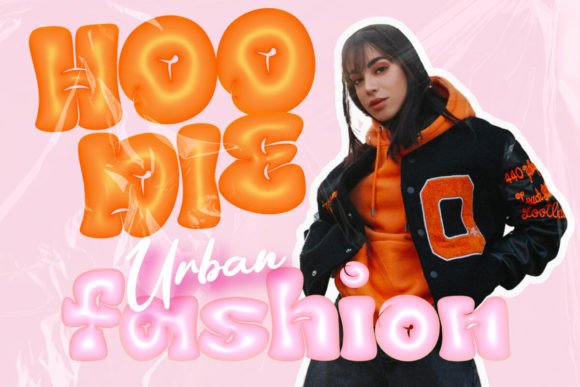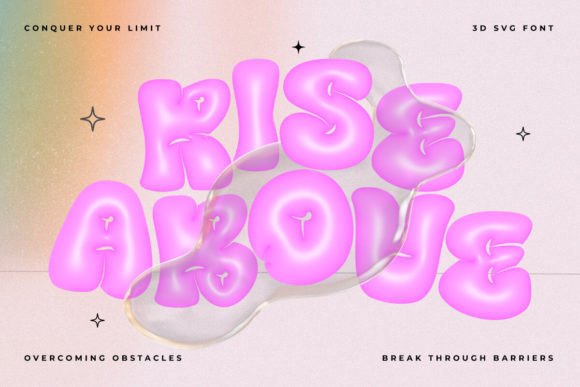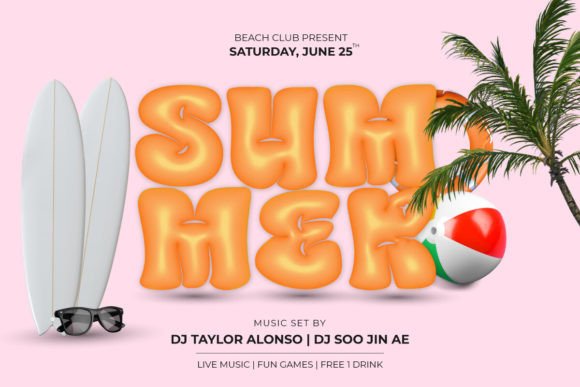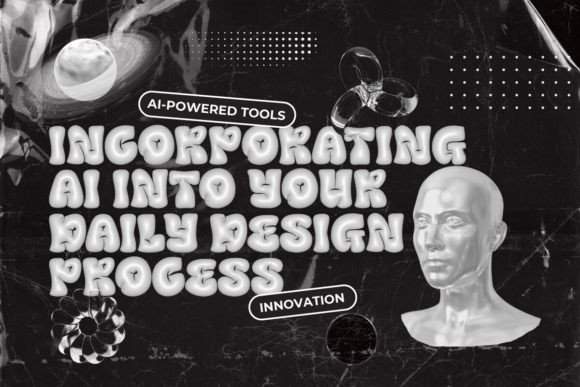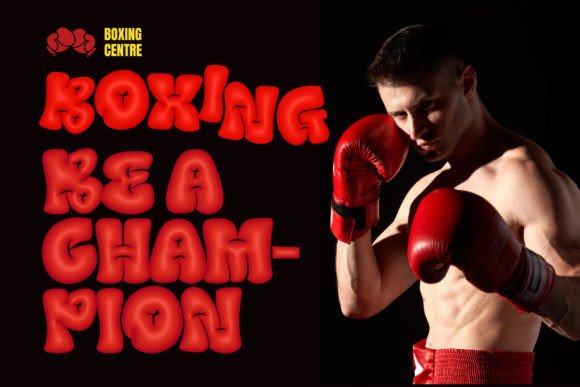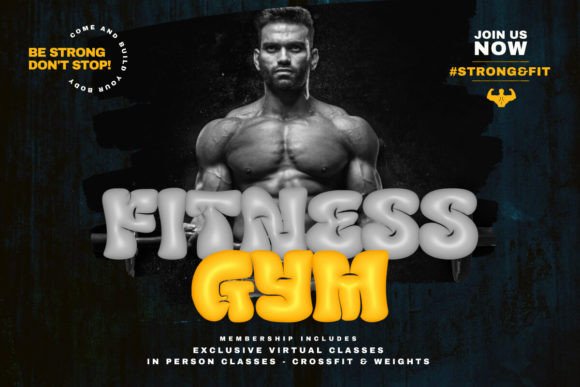
Introduction to Gury Pump Font Font
Fonts play a crucial role in design, and the Gury Pump Font font is a typeface that brings both character and versatility to any project. Whether you’re working on a branding project, a website, or a print design, the Gury Pump Font font offers a unique style that can elevate your work.
Elevate your designs to new dimensions with Gury Pump, a mesmerizing 3D SVG font.
Crafted to deliver realistic three-dimensional effects, Gury Pump adds depth and texture that make every creative project stand out Perfect for posters, logos, and social media, this font injects a dynamic touch that brings each letter to life.
The Gury Pump Font font is more than just a typeface – it’s a design tool that helps you communicate your message with style and clarity. Its unique character set and versatile design make it suitable for a wide range of applications, from elegant invitations to bold headlines.
With its carefully crafted letterforms and balanced proportions, the Gury Pump Font font ensures readability and visual appeal across all mediums.
What makes Gury Pump Font font special?
The Gury Pump Font font stands out with its unique design, exceptional readability, and versatility across various design applications.